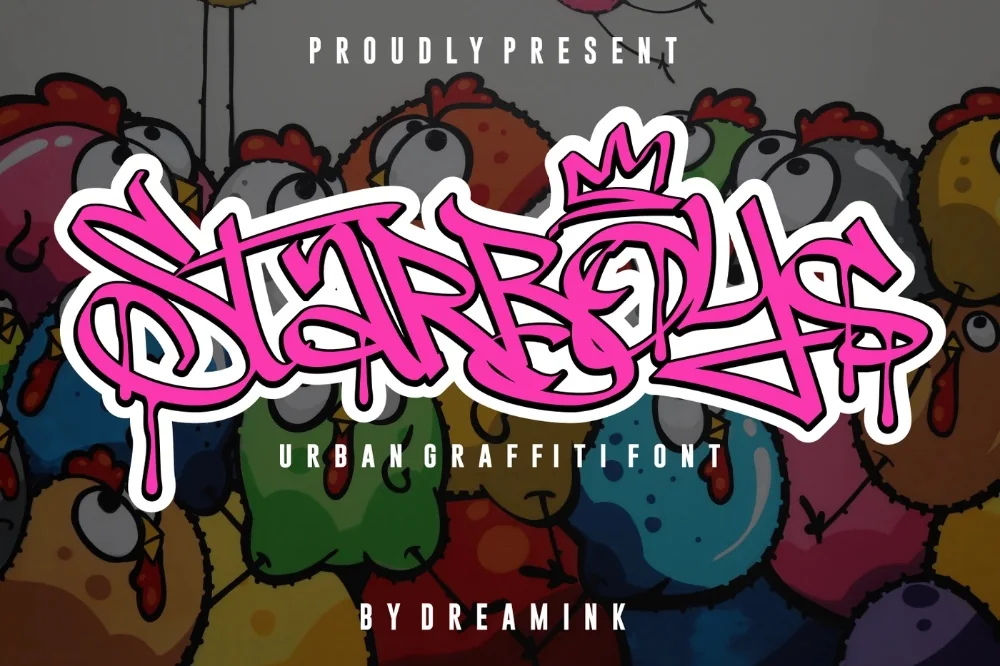
Star Crew Graffiti Font
Artwork by Starboys, the original creator of this set.
Among the star graffiti font options in this library, this alphabet is the one worth trying first. Bold letters punctuated with small star shapes and highlights. Celebratory without being formal.
Stars appear as cut-out shapes inside several characters and as accents along the outline, and the base letterforms stay thick enough to carry them. Works best in one or two colours.
Perfect for team graphics, award designs, party invitations, and music promo art.